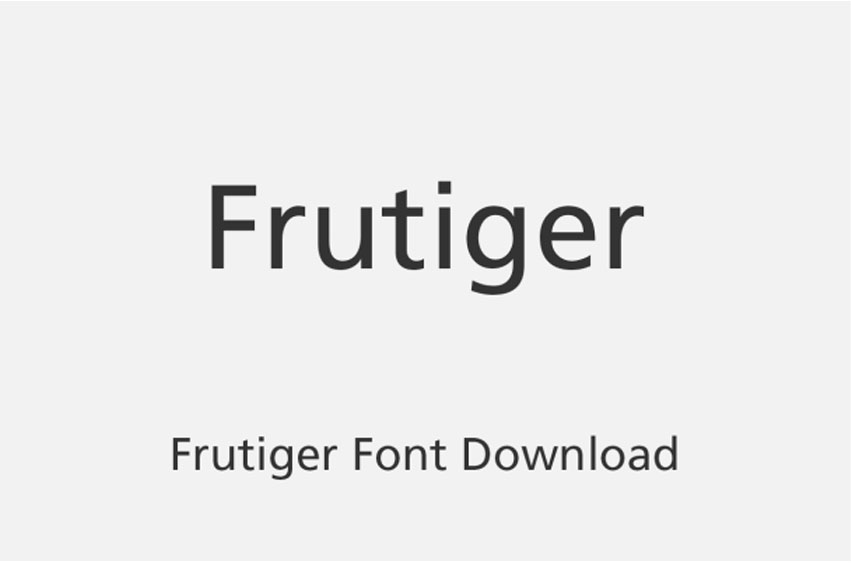
Frutiger Sans Font was asked in 1968 by Charles de Gaulle Airport in Paris to design an airport signage and direction system using his popular Univers Font family of fonts. But instead he created a new sans serif font specifically tailored for the requirements of legibility in airport signage – easy recognition of angles and distances of walking and driving directions.
Font that was developed to complement contemporary airport architecture was developed.